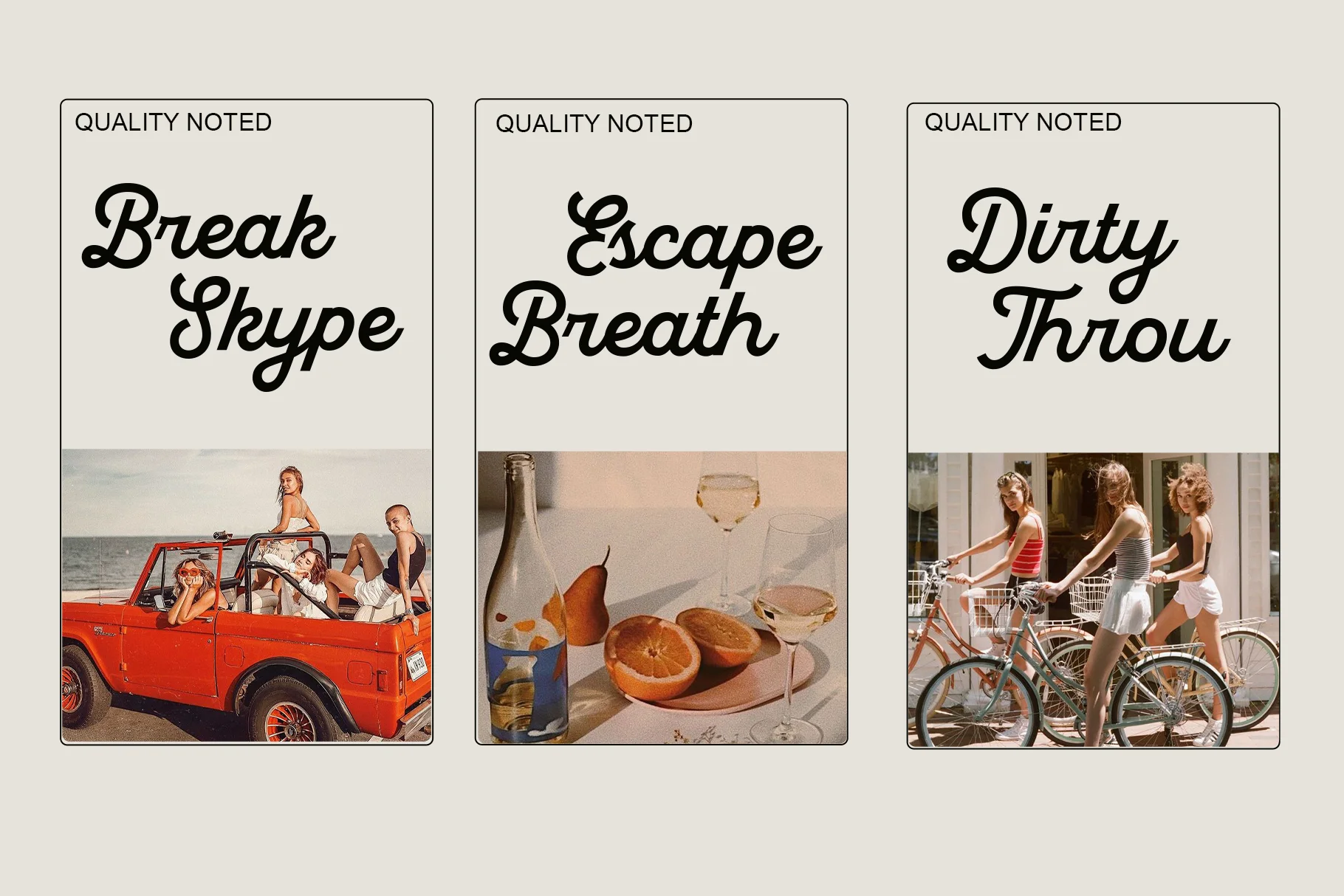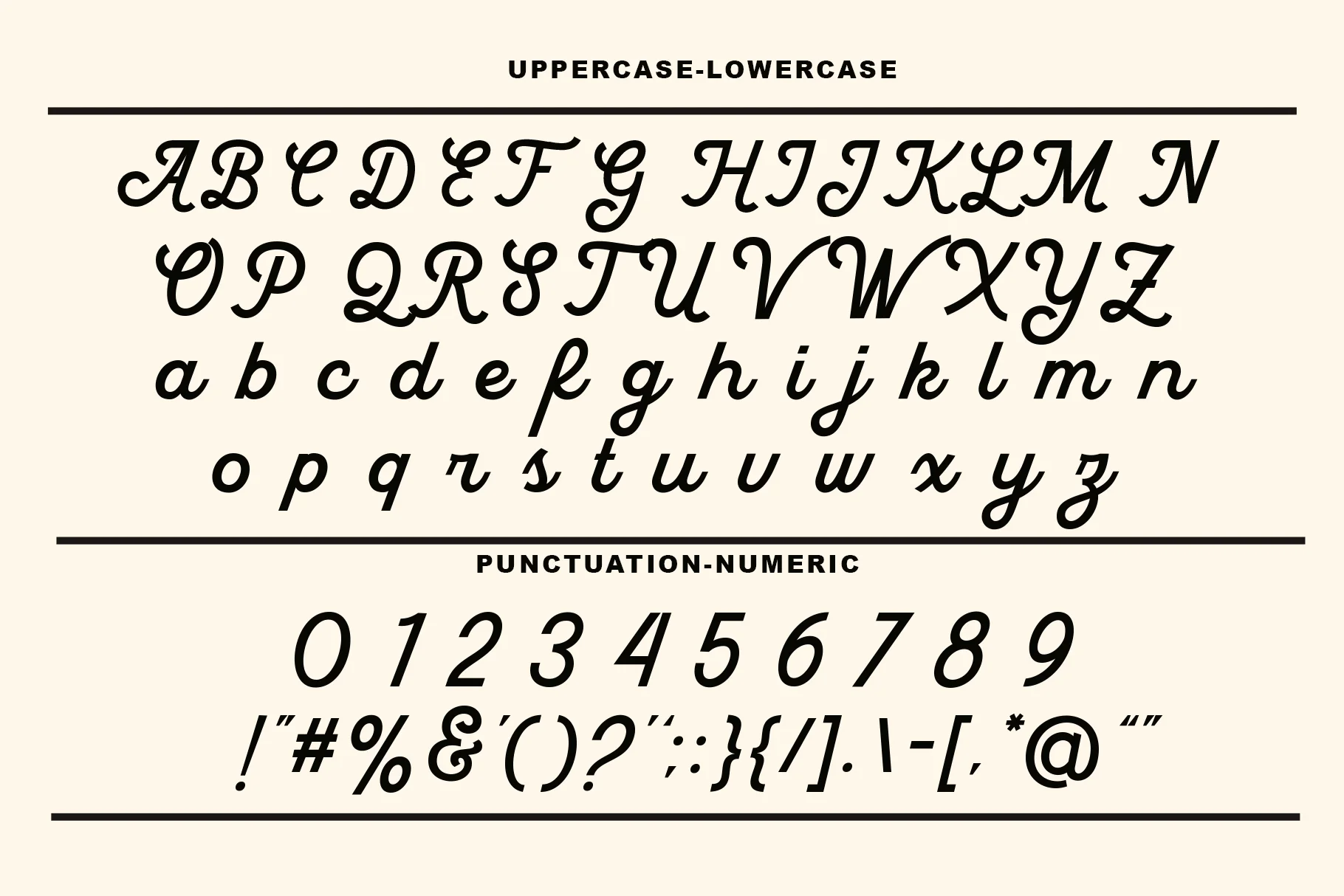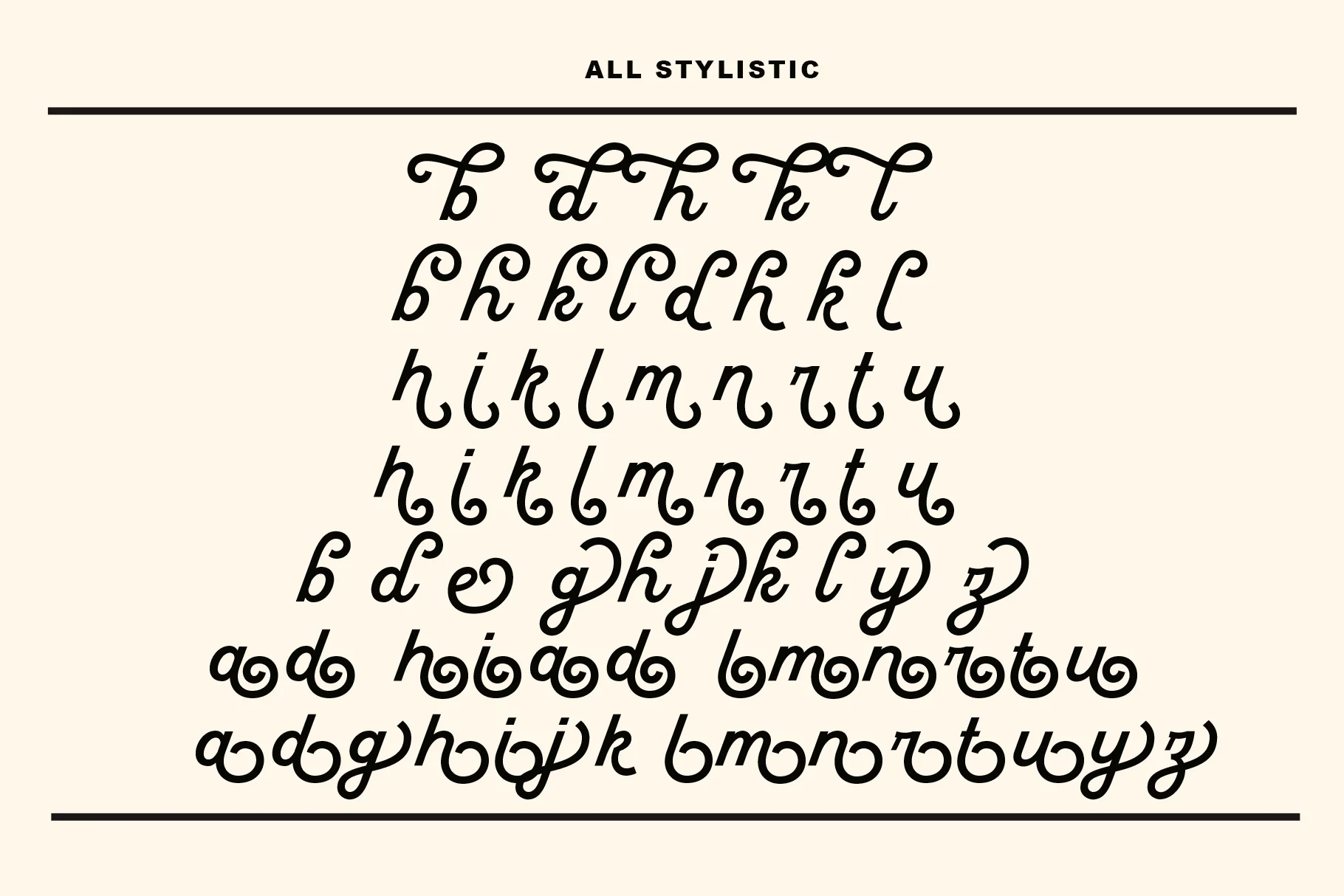
Quallity Noted
- Spacing Monospace
Quallity Noted will perfect for many project: book, magazines, logo, branding, photography, quotes, blog header, poster, advertisements, etc.